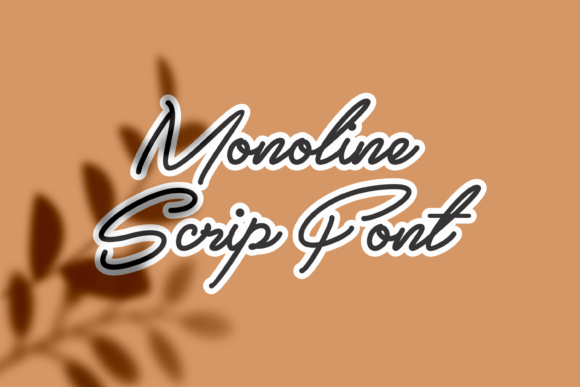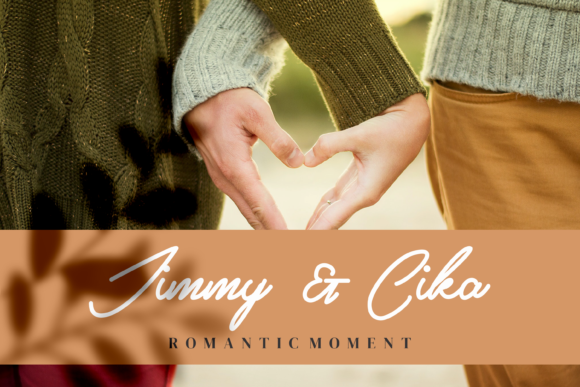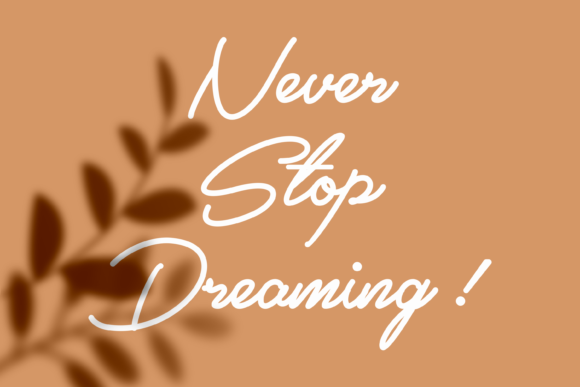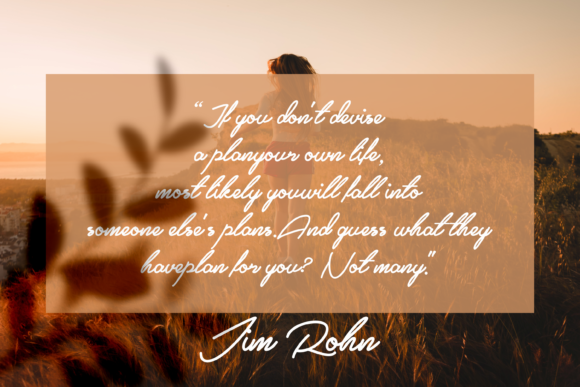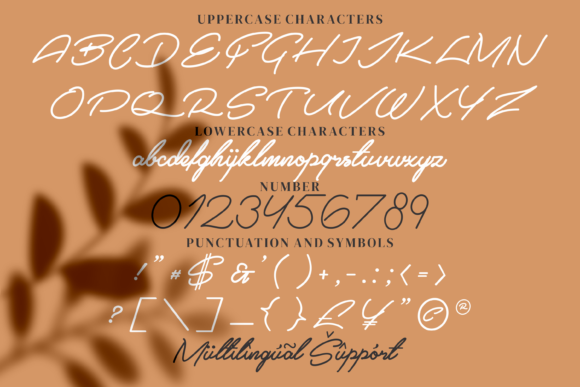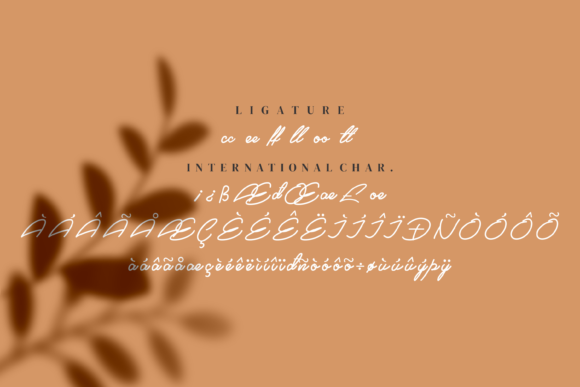
Introduction to Sahida Font Font
Fonts play a crucial role in design, and the Sahida Font font is a typeface that brings both character and versatility to any project. Whether you’re working on a branding project, a website, or a print design, the Sahida Font font offers a unique style that can elevate your work.
Sahida is a beautiful, well balanced and vintage styled script font.
It is defined by smooth curves and is perfect for fashion branding or editorial designs Add it confidently to your projects, and you will love the results.
Key Features of Sahida Font Font
Why Choose Sahida Font Font?
The Sahida Font font is more than just a typeface – it’s a design tool that helps you communicate your message with style and clarity. Its unique character set and versatile design make it suitable for a wide range of applications, from elegant invitations to bold headlines.
With its carefully crafted letterforms and balanced proportions, the Sahida Font font ensures readability and visual appeal across all mediums.
What makes Sahida Font font special?
The Sahida Font font stands out with its unique design, exceptional readability, and versatility across various design applications.